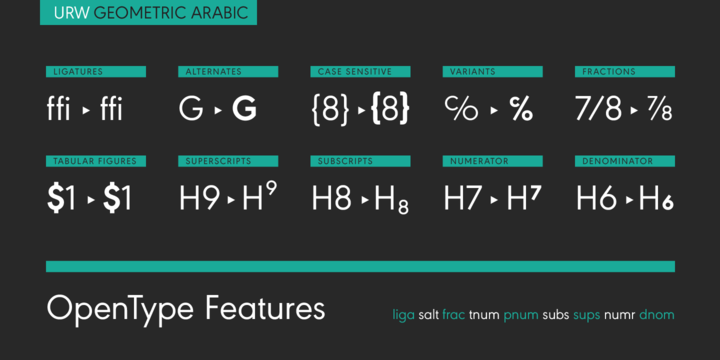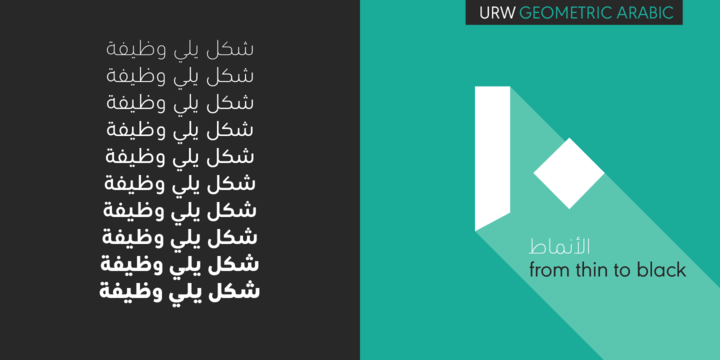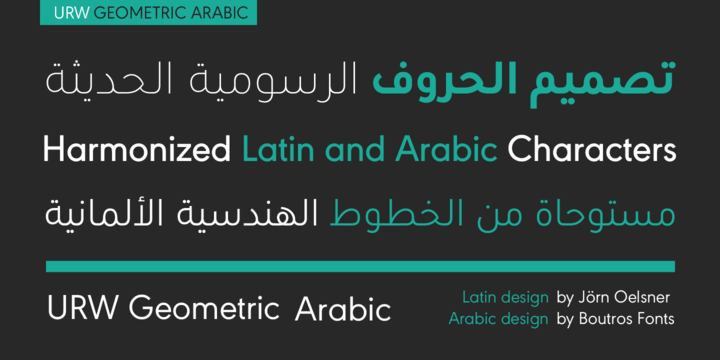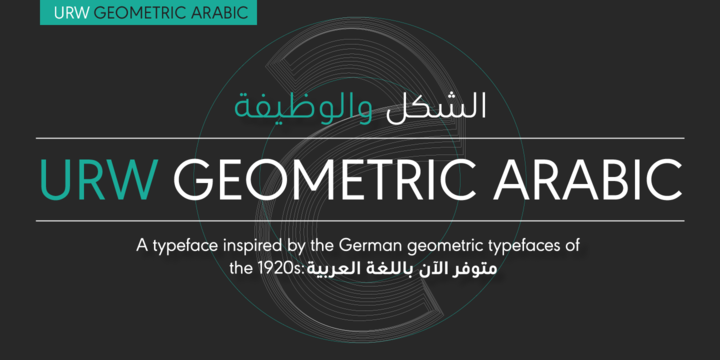
URW Geometric Arabic Font Family
URW Geometric is a sans serif typeface inspired by the German geometric typefaces of the 1920s but designed for modern usability. The character shapes have optimized proportions and an improved balance, the x-height is increased, ascenders and descenders are decreased. These design characteristics increase the usability and legibility tremendously.